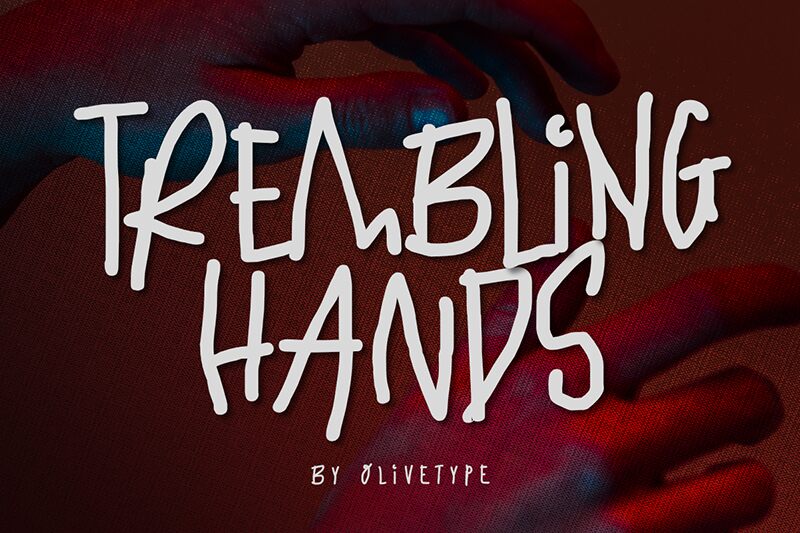
Trembling Hands font by olivetype is a unique handwritten typeface with an organic and dynamic design. This free font features disjointed and expressive letterforms with an unconventional modern appeal. Its quirky nature makes it an informal and creative choice for users seeking a remarkable and one-of-a-kind design.
The font is excellent for creating the branding, packaging, labels, menus, and social media posts of businesses involved with products or services promoting wellness and beauty. Many art, craft, and entertainment projects will also gain distinctive value when using the font.
Finally, the font finds more use in poster, flyer, invitations, and greeting card design.